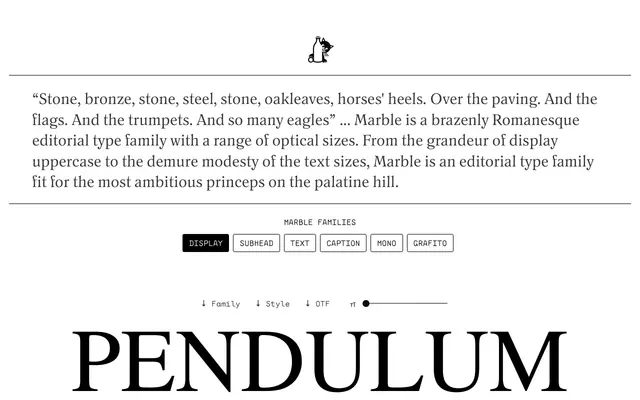
Marble
East of Rome · Lewis McGuffie, Fred Wiltshire, Mathieu Verhoeven
A Roman-inspired editorial serif family spanning four optical sizes, a monospace and a handwriting-derived Grafito style, drawing on ancient letterforms and the humanist tradition from Bembo to Dante.
Designed by Lewis McGuffie with Fred Wiltshire contributing the Mono and Mathieu Verhoeven contributing astrological and planetary symbols, Marble spans 61 styles across six sub-families. Its four optical sizes move from grand display uppercase to modest caption text, taking cues from draughtsmen's guides for inscriptional lettering and ancient Roman handwriting samples. The Grafito style extends the family into informal territory, and coverage runs across Latin and Greek scripts.
Marble draws on Roman letterform traditions, referencing draughtsmen's guides and ancient Roman handwriting, alongside humanist serif precedents such as Bembo, Palatino and Dante. Its editorial purpose and broad-nib text construction place it firmly in the classical serif lineage.